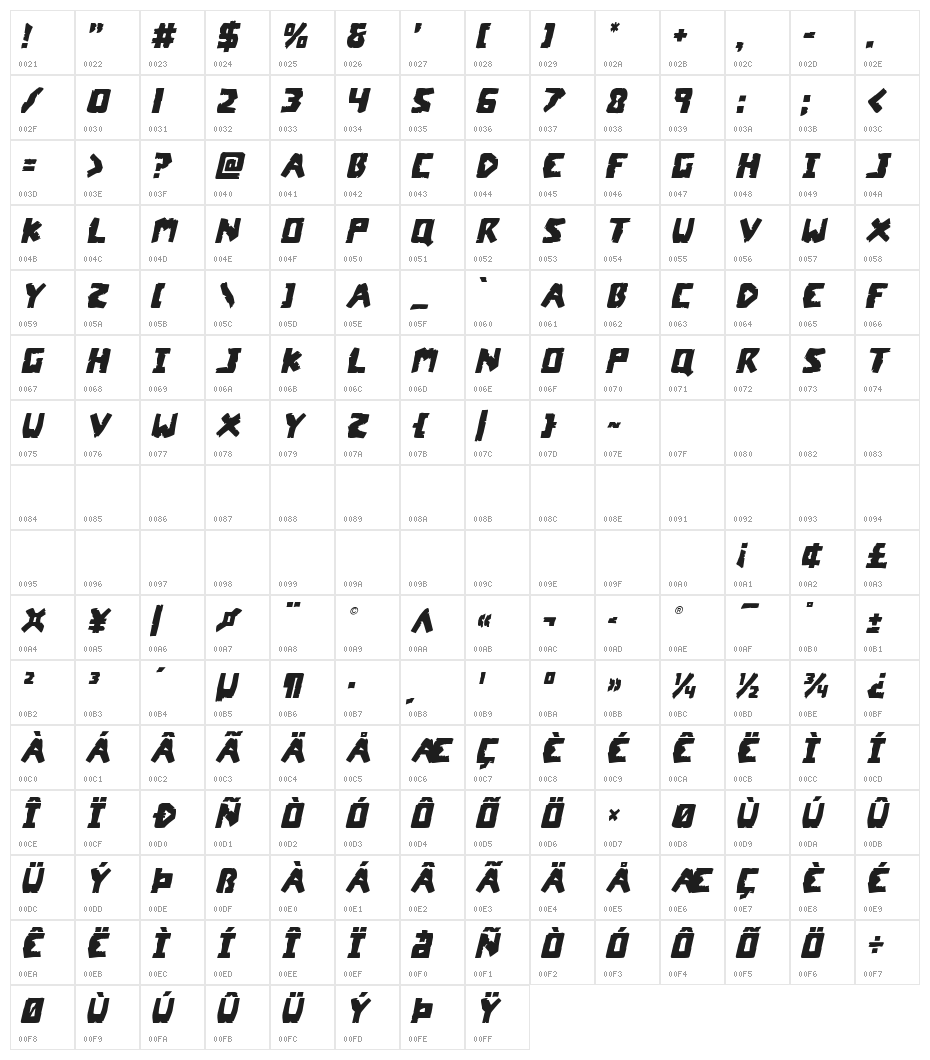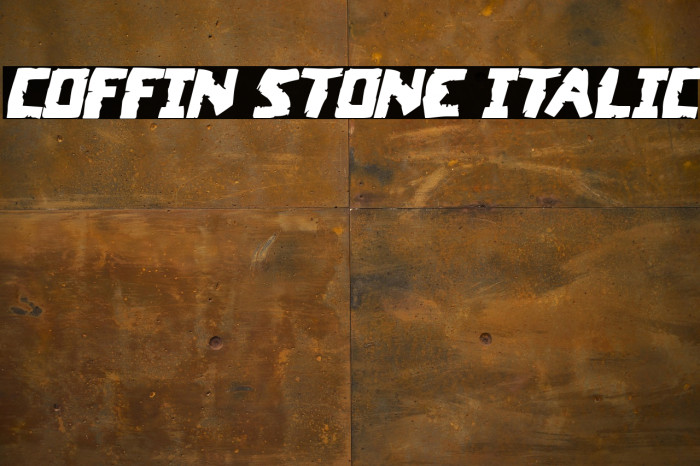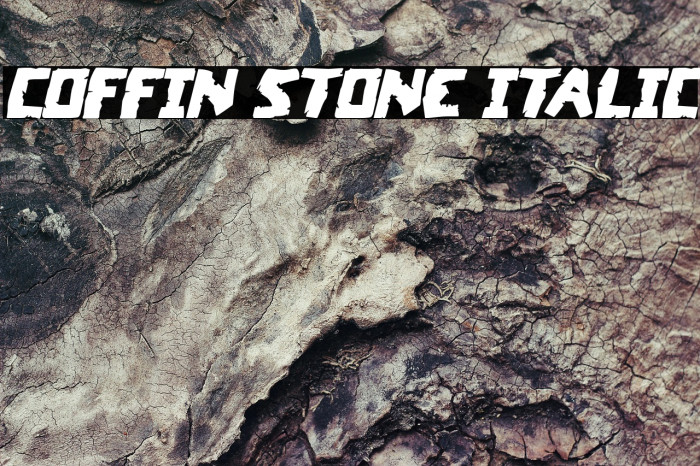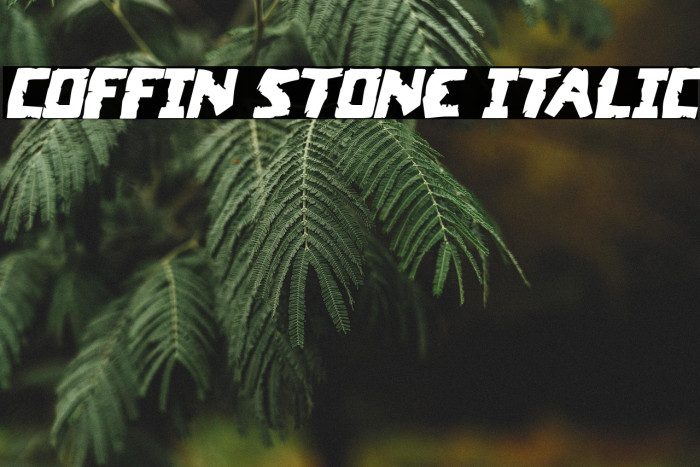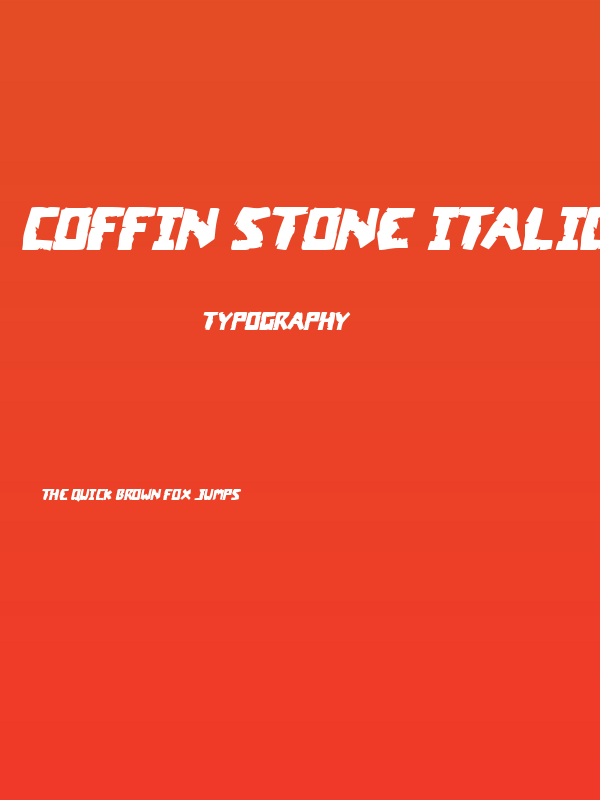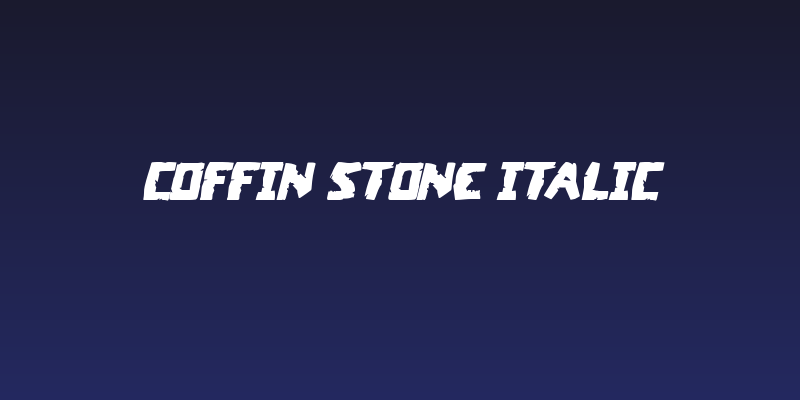
Coffin Stone Italic Font
Coffin Stone Italic Description
This font features a bold, jagged style with a distressed appearance, giving it a rugged and edgy look. The characters are italicized, adding a sense of motion and dynamism. The strokes are thick and uneven, creating a high contrast between the filled and negative spaces. This design choice enhances its aggressive and impactful aesthetic, making it suitable for attention-grabbing headlines or thematic designs. The font's unique texture and angular shapes contribute to its distinctive personality, ideal for projects that require a bold statement.
| Proposed Projects | Ideal for horror-themed posters, edgy branding, album covers, or video game titles. |